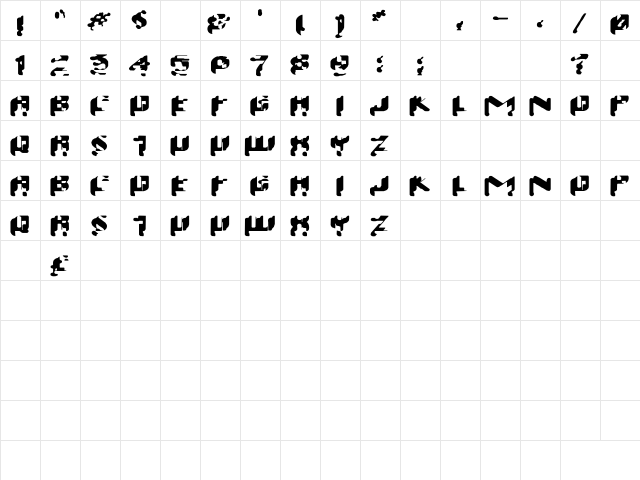
Wash 99 Regular
Design Context for Wash 99 Typeface
Wash 99 is a composed and adaptable typeface that performs quietly and consistently across a wide range of design contexts.